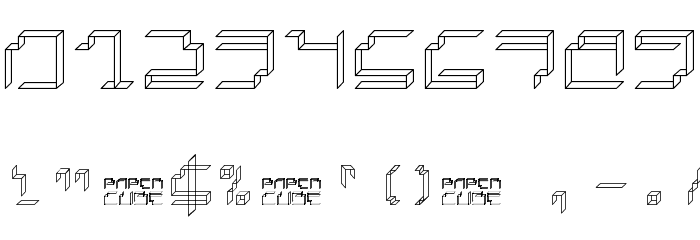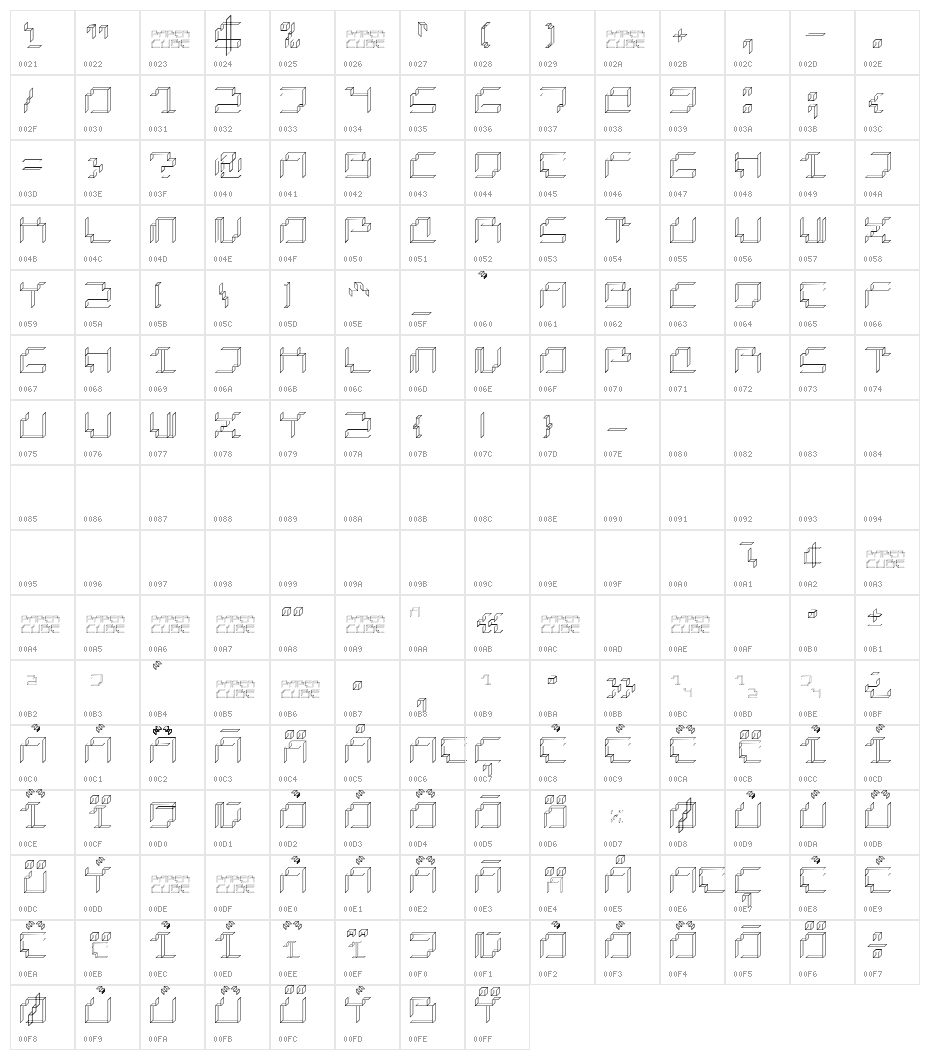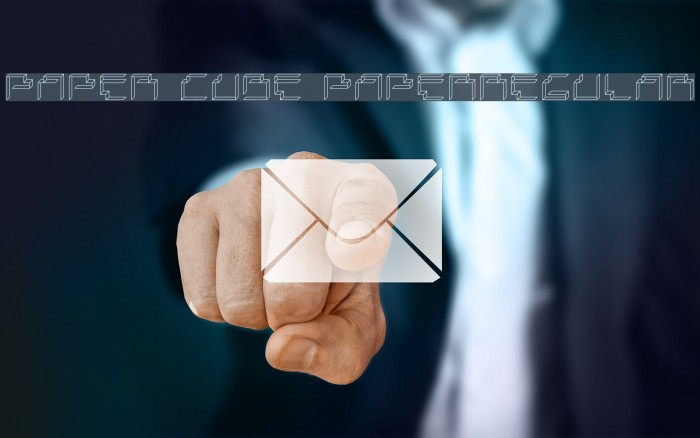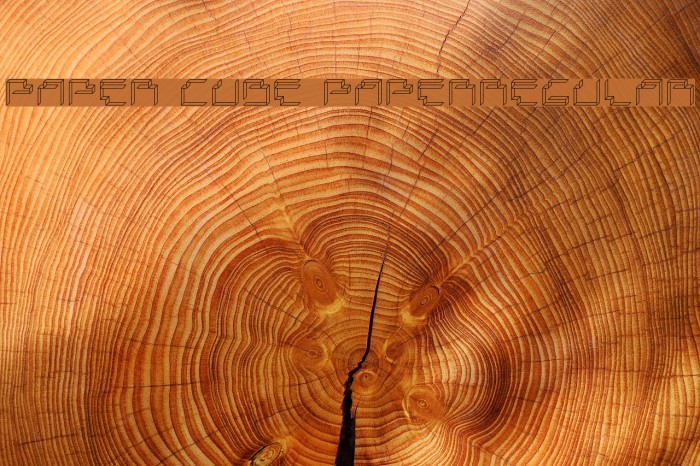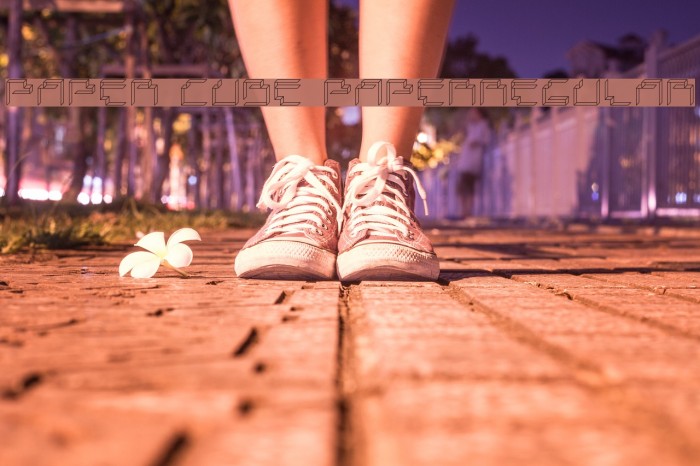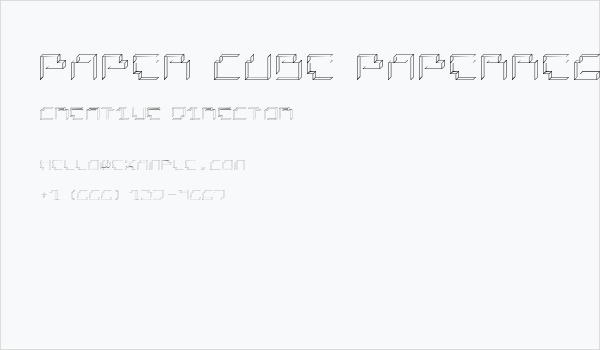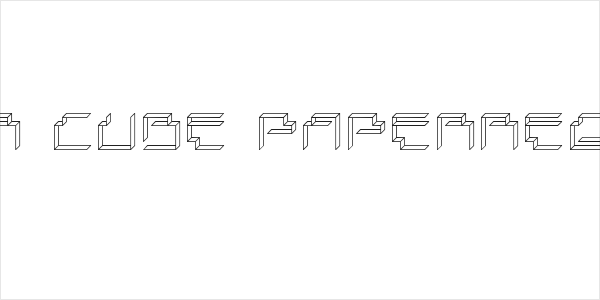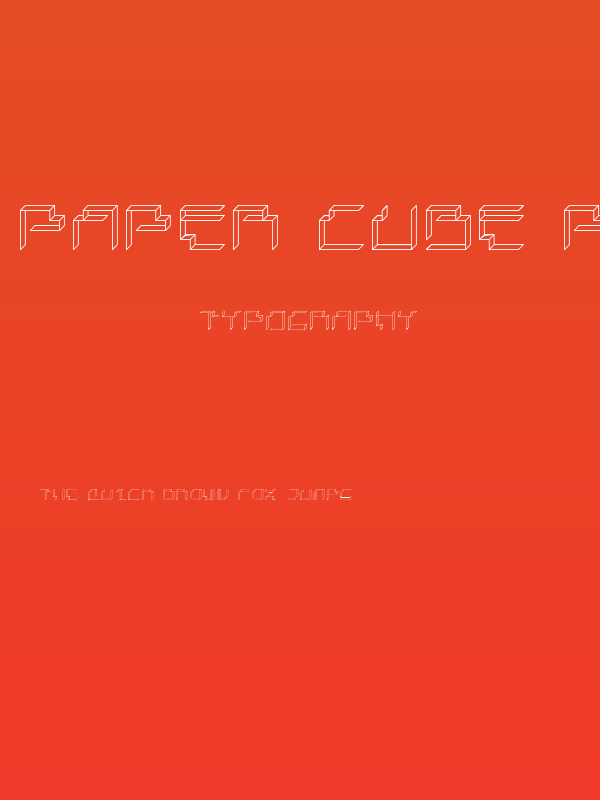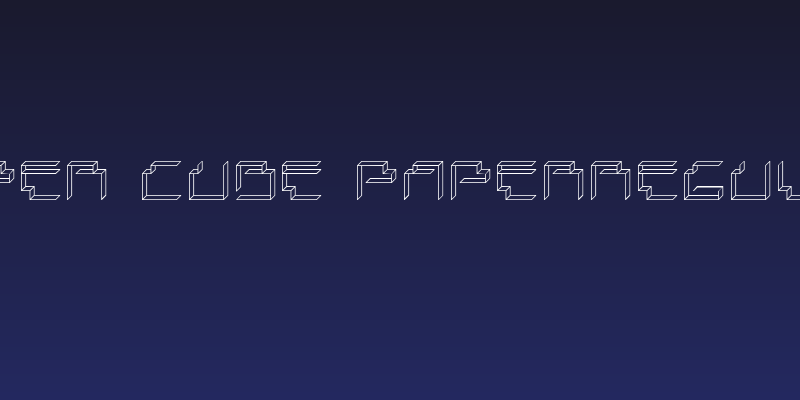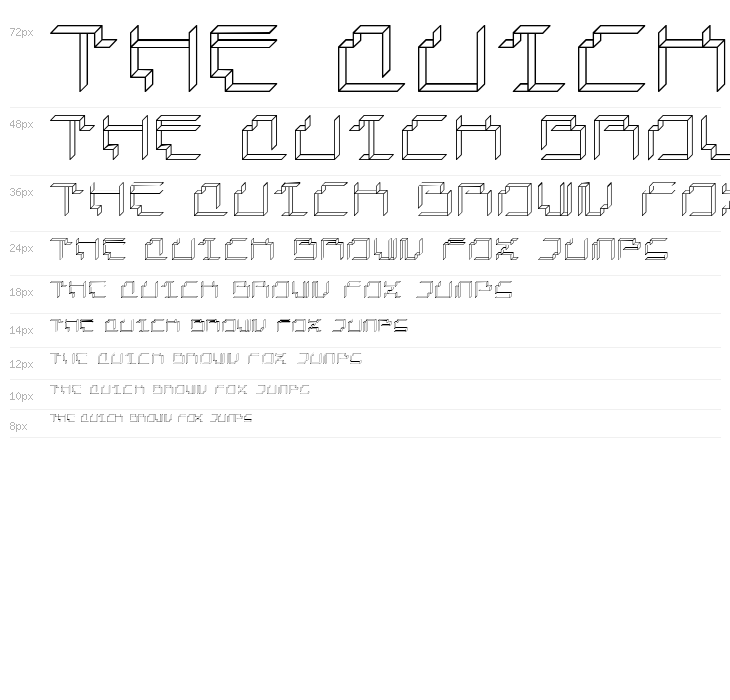
Paper Cube paperRegular Font
Paper Cube paperRegular Description
This font features a unique, geometric design that resembles folded paper or origami. Each character is constructed with angular lines and sharp edges, giving it a three-dimensional, cube-like appearance. The style is highly decorative and modern, with a futuristic feel. The uppercase and lowercase letters maintain a consistent structure, while the numbers and special characters follow the same design principles, ensuring uniformity across the font. The intricate detailing and bold outlines make it stand out, ideal for creative and eye-catching designs.
| Proposed Projects | Ideal for futuristic branding, tech-related projects, posters, and any design requiring a standout, modern aesthetic. |